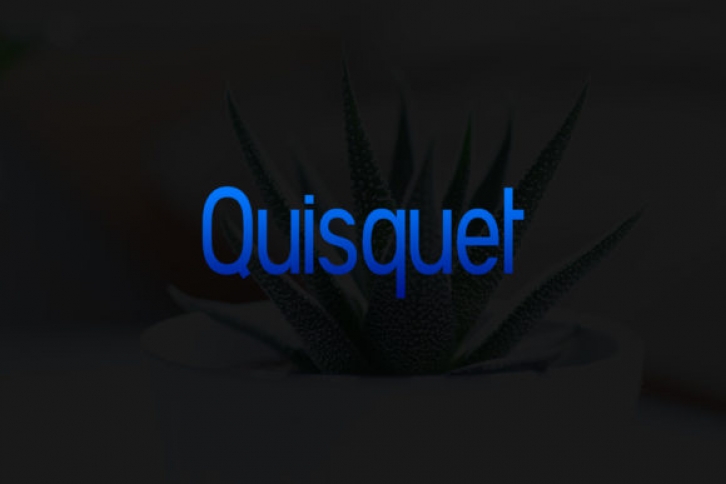
Quisquet is a unique typeface perfect for headlines, big text, branding, logotypes & display usage.
Use it to add that special enchanting touch to any design idea you can think of!